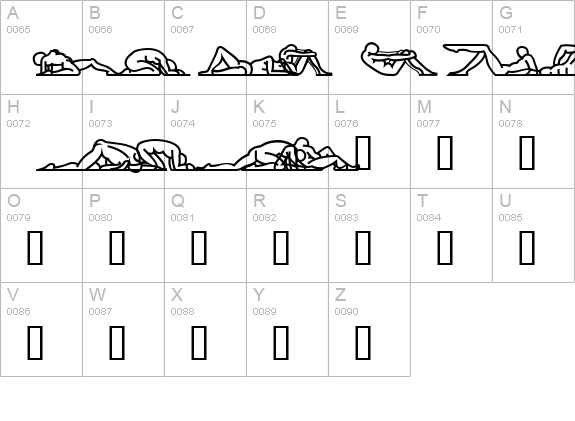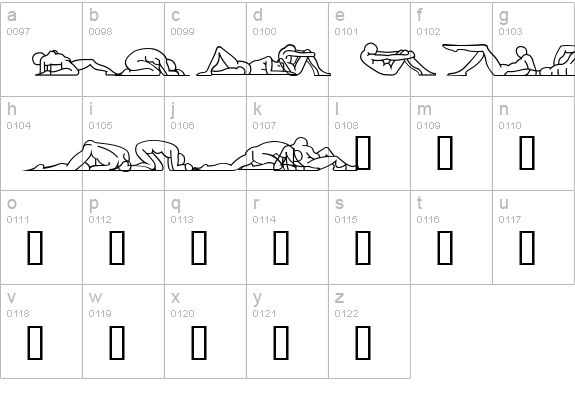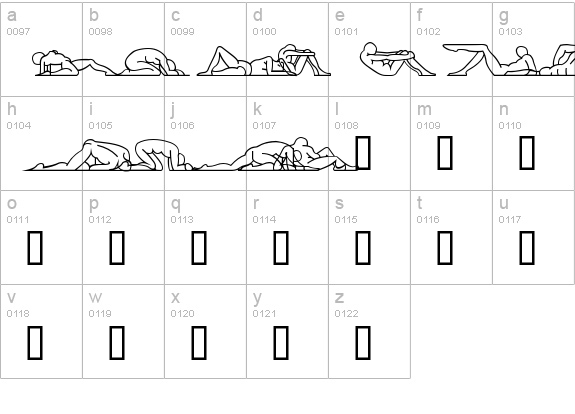
Candide Dingbats Font Details
Candide Dingbats font is a whimsical and playful typeface that is perfect for adding a touch of fun to your design projects. This font features a collection of charming icons and symbols that can be used to enhance your creative work. With its unique and quirky design, Candide Dingbats font is sure to bring a smile to anyone who sees it. Best of all, Candide Dingbats font is available for free download at FontsMarket.com. This means that you can easily add this delightful font to your collection without spending a penny. Whether you're working on a poster, greeting card, or website design, Candide Dingbats font is a versatile choice that will make your projects stand out. Download it today and let your creativity shine with this charming and cheerful font.